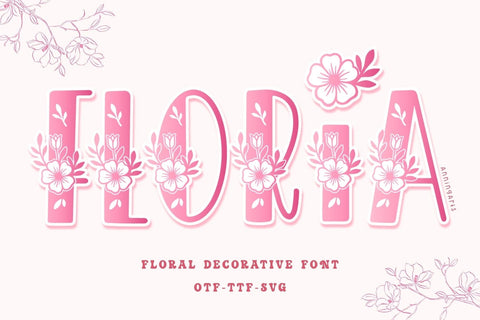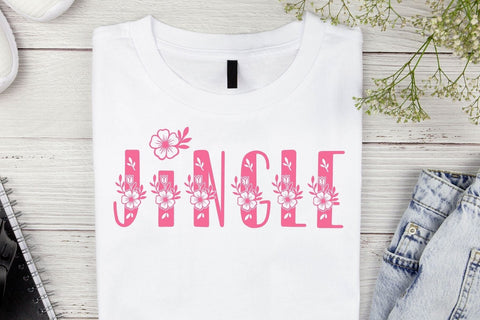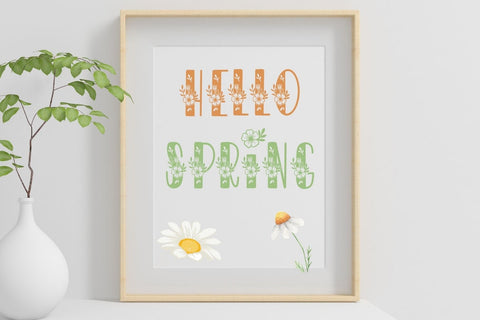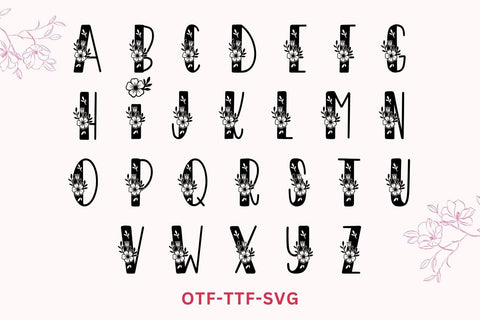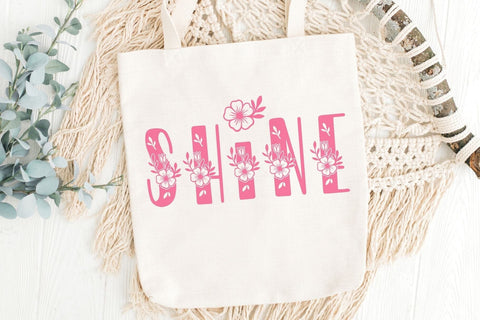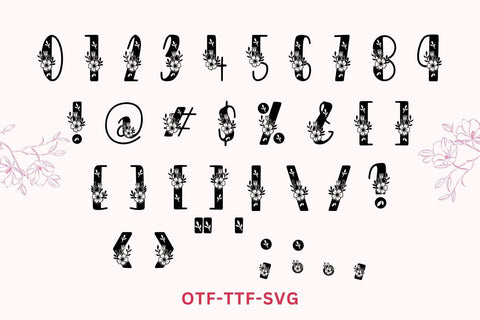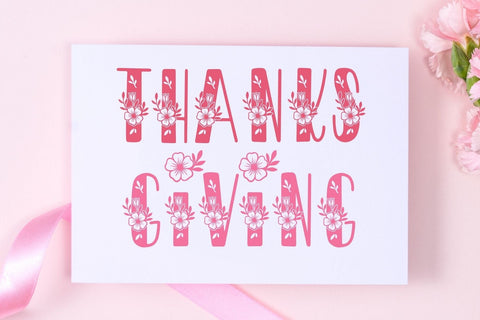
Floria – Elegant Floral Decorative Font
Floria is a floral decorative font designed with intricate flower details in every letter. Perfect for wedding invitations, monograms, logos, tote bags, and t-shirts, this font adds a romantic and feminine touch to any project. Compatible with Cricut and Silhouette, it’s ideal for crafters who love creating elegant designs for seasonal events, home decor, and personalized gifts.